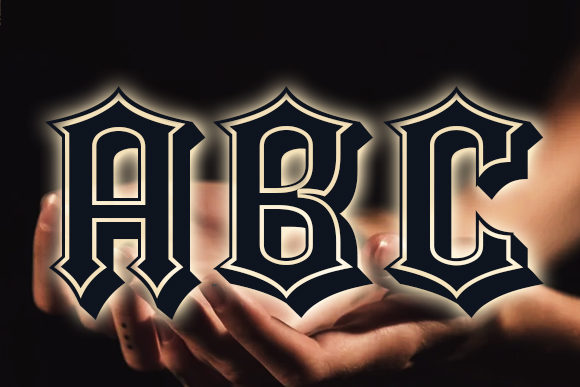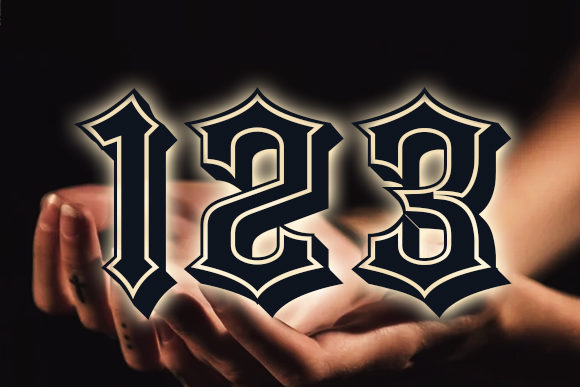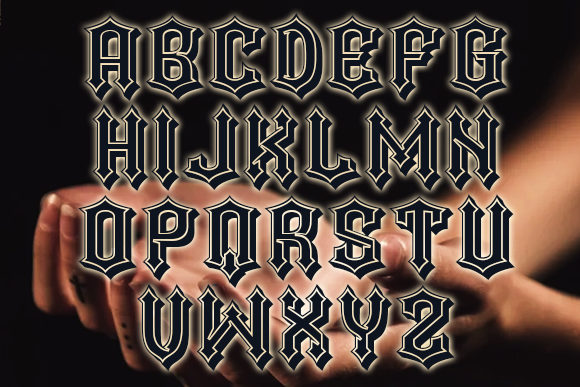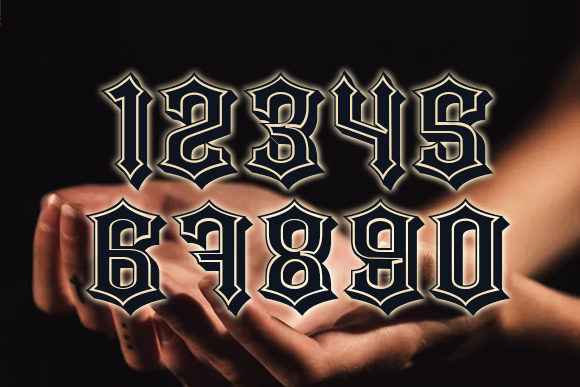
Darker Font: Elevate Your Designs with a Stunning Decorative Font
Are you looking for a font that can add a touch of elegance and sophistication to your designs? Look no further than the Darker font. This awesome decorative font is perfect for creating stunning posters, flyers, and prints that will capture the attention of your audience. In this article, we’ll explore the features and benefits of the Darker font, and show you how to use it to take your designs to the next level.
What is Darker Font?
Darker font is a decorative font designed to add a touch of drama and elegance to your designs. Its unique and intricate lettering style makes it perfect for creating eye-catching headlines, titles, and text. The font is highly versatile and can be used for a wide range of design projects, from posters and flyers to logos and branding materials.
Key Features of Darker Font
- Unique and Intricate Lettering Style: The Darker font features a unique and intricate lettering style that is sure to capture the attention of your audience.
- Highly Versatile: The font is highly versatile and can be used for a wide range of design projects, from posters and flyers to logos and branding materials.
- Easily Customizable: The font is easily customizable, allowing you to adjust the size, color, and style to fit your design needs.
Benefits of Using Darker Font
There are many benefits to using the Darker font in your designs. Here are just a few:
- Adds Elegance and Sophistication: The Darker font adds a touch of elegance and sophistication to your designs, making them perfect for high-end brands and luxury products.
- Creates Eye-Catching Headlines: The font’s unique and intricate lettering style makes it perfect for creating eye-catching headlines and titles.
- Highly Readable: Despite its decorative style, the Darker font is highly readable, making it perfect for use in body text as well as headlines.
- Endless Possibilities: The Darker font offers endless possibilities for designers and crafters, allowing you to experiment with different styles, colors, and textures.
How to Use Darker Font in Your Designs
Using the Darker font in your designs is easy. Here are a few tips to get you started:
- Choose the Right Size: Choose a size that is large enough to be readable, but small enough to fit your design.
- Experiment with Colors: Experiment with different colors and textures to find the perfect combination for your design.
- Use it for Headlines and Titles: Use the Darker font for headlines and titles to add a touch of elegance and sophistication to your design.
- Pair it with Other Fonts: Pair the Darker font with other fonts to create a unique and visually appealing design.
Tips and Tricks for Working with Darker Font
Here are a few tips and tricks for working with the Darker font:
- Use it for Large Text: The Darker font is perfect for large text, such as headlines and titles.
- Experiment with Different Styles: Experiment with different styles, such as bold, italic, and underline, to add emphasis to your text.
- Use it for Logos and Branding: Use the Darker font for logos and branding materials to add a touch of elegance and sophistication.
In conclusion, the Darker font is an awesome decorative font that will look stunning on any poster, flyer, or print. Its unique and intricate lettering style makes it perfect for creating eye-catching headlines and titles, while its highly readable style makes it perfect for use in body text as well. With its endless possibilities and ease of use, the Darker font is a must-have for designers and crafters looking to elevate their designs to the next level.